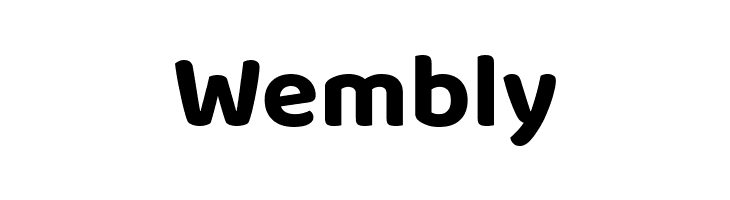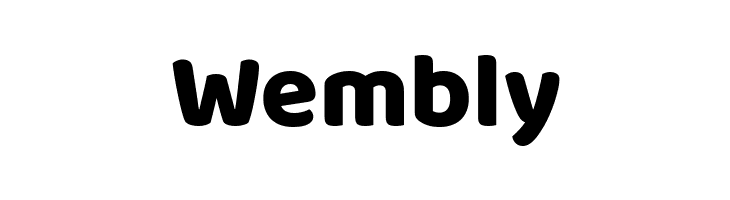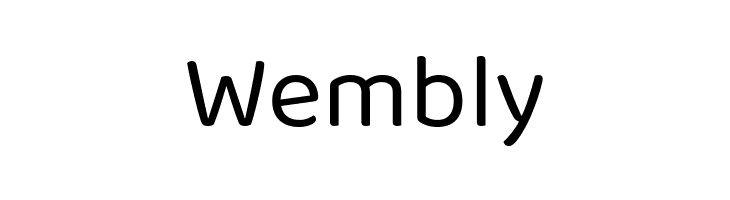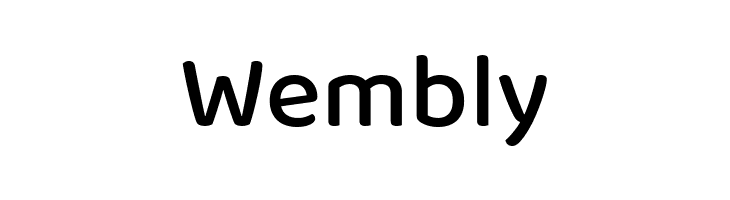
A bold, rounded, and playful font with a modern and friendly appearance.
A playful, rounded, and extra bold font with smooth curves and a friendly appearance.
A playful, rounded typeface with smooth curves and a friendly appearance.
A friendly, rounded font with smooth curves and consistent stroke width.